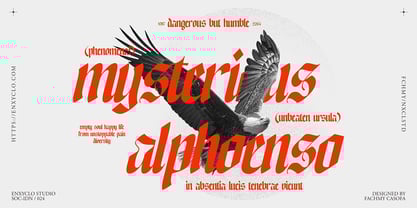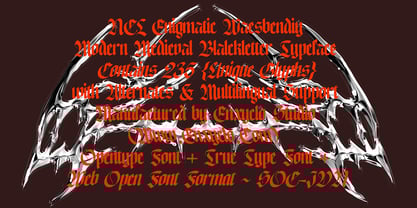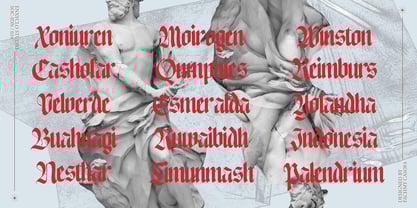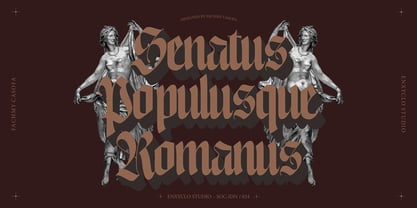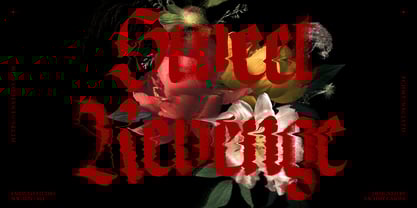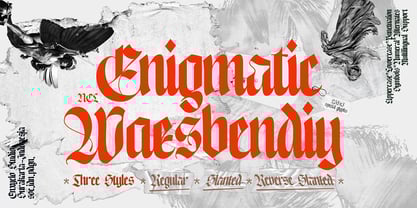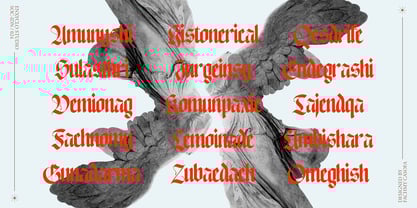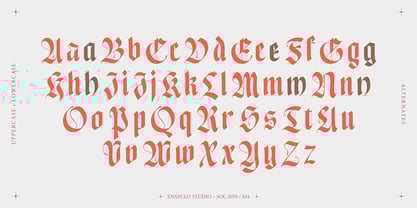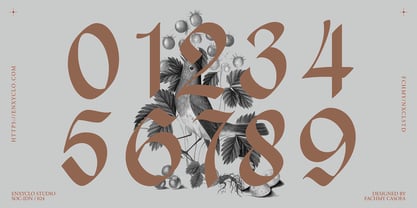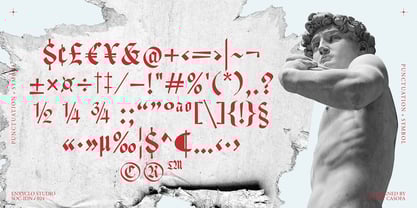
NCL Enigmatic Waesbendiy
by Enxyclo Studio
The NCL Enigmatic Waesbendiy Font Family was designed by Fahmi Mubarok and published by Enxyclo Studio. NCL Enigmatic Waesbendiy contains 3 styles and family package options. More about this family
NCL Enigmatic Waesbendiy is a modern medieval blackletter font. The letters are inspired from the middle ages with a blackletter style but have modern touch. Very suitable for creative projects that have a medieval theme or contemporary designs but have a modern-classic touch. Its modern aesthetics bring a whole new dimension to your designs, making them stand out. Whether you’re working on a website, poster, logo, or any other project, this font adds that extra touch of innovation and sophistication.
• 235 Glyphs for Each Style
• 705 Total Glyphs
• Three Styles: Regular, Slanted, Reverse Slanted
• Uppercase & Lowercase
• Numeral, Punctuation & Symbols
• Alternates
• Multilingual Support
Designers: Fahmi Mubarok
Foundry: Enxyclo Studio